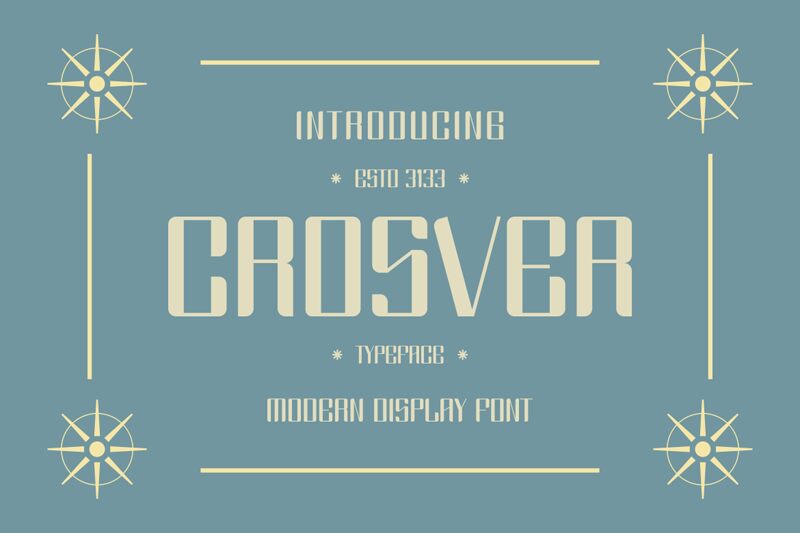
Crosver font by Gilang Ternadho is a condensed display typeface with a geometric, industrial, and modern style. Its futuristic look comes from the sharp rigid angles of characters which create a precise and scientific visual display. The collection’s various components can be used as texts or single English letters to form wonderful masterpieces.
CROSVER
Gilang Ternadho